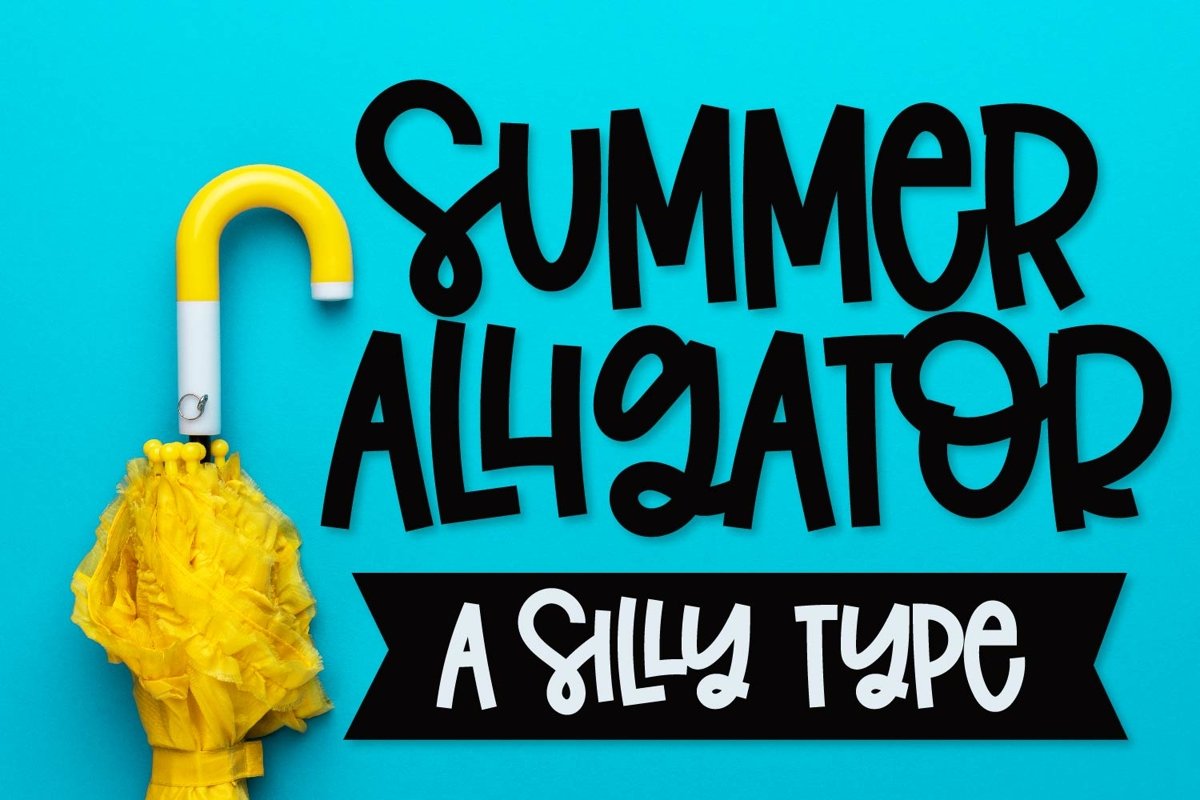
Summer Alligator - A Clean Craft Friendly Type!
If you need the "S" that doesn't have the lead in (Such as, at the end of a word, use the capital version.
You'll want to use this font in lowercase, as the capital letters are just a place holder and you'll get much better kerning, spacing, ligatures with the lower case set. :)